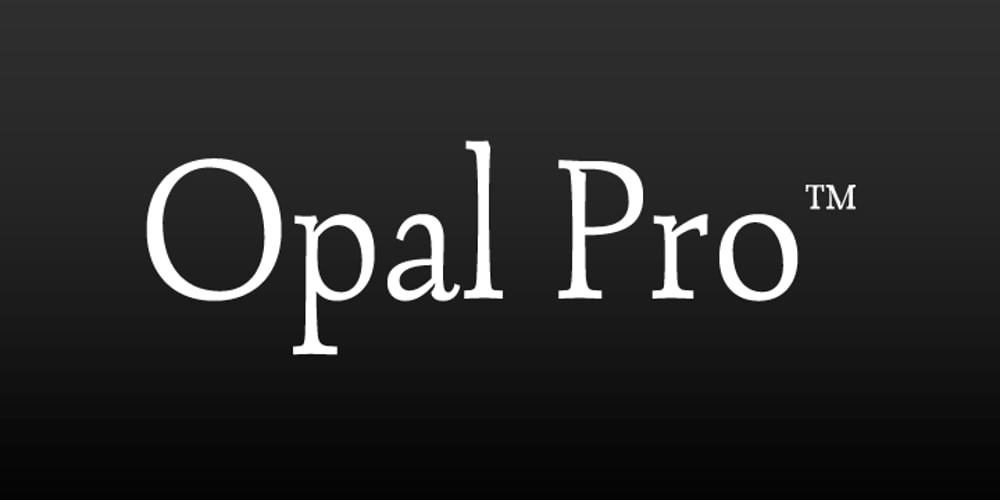
Opal
Opal font
Opal Font Family was designed by Hannes von Döhren and published by Linotype. Opal contains 4 styles and family package options. Opal Pro is a text family designed by Hannes von Döhren in 2008. It gives every text a noble character. The typeface has long ascenders that clearly rise above the capital letters and a low x-height. Opal’s letters sport inktraps at stroke junctions, which on one hand create a cutout feeling and on the other hand strengthens the image in larger point sizes. In total, the letterforms have clear emphasis on their verticals and horizontals; they do not fear the weight on their curves. In addition to the Italic and Bold, the Opal type family includes a Script face, whose letterforms include connections, similar to handwriting. On top of that, the typeface possesses swash letters for italic and script, small caps, many ligatures and borders & ornaments. With a little bit of care, designers will be able to create the finest of traditional, elegant work with this family.